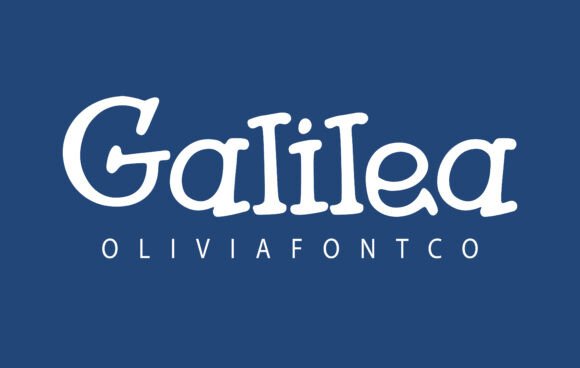
Discover the Charm of Galilea Font: Elevate Your Designs with a Romantic Touch
In the world of typography, a well-crafted font can make all the difference in bringing your creative visions to life. Introducing Galilea Font, an authentic handwritten font that exudes a romantic touch, perfect for designers seeking to add a personal and elegant flair to their projects. In this article, we’ll dive into the features, benefits, and uses of Galilea Font, exploring how it can become your go-to choice for a wide range of design applications.
The Essence of Galilea Font
Galilea Font is an expertly designed, handwritten typeface that boasts a unique blend of elegance and playfulness. Its romantic undertones make it an ideal choice for projects that require a touch of sophistication and whimsy. The font’s authenticity lies in its carefully crafted letters, which convey a sense of warmth and approachability. Whether you’re working on a magazine headline, social media post, or wedding invitation, Galilea Font is sure to leave a lasting impression.
Key Features of Galilea Font
- Legibility: Galilea Font is designed to be highly legible, making it perfect for both title and body text. Its clear and readable letters ensure that your message is conveyed effectively, regardless of the context.
- Romantic Touch: The font’s romantic undertones add a touch of elegance and sophistication to any design. This makes it an excellent choice for projects that require a personal and emotional connection with the audience.
- Versatility: Galilea Font is incredibly versatile, suitable for a wide range of design applications, including magazine headlines, social media posts, branding, wedding invitations, cards, and more.
- Authentic Handwritten Style: The font’s handwritten style gives it a unique and personal feel, allowing you to add a human touch to your designs.
Benefits of Using Galilea Font
By incorporating Galilea Font into your design projects, you can expect a range of benefits that elevate your work and enhance your brand’s visual identity. Some of the key advantages of using Galilea Font include:
- Emotional Connection: The font’s romantic touch helps create an emotional connection with your audience, making your designs more relatable and engaging.
- Unique Visual Identity: Galilea Font’s distinctive style sets it apart from more traditional typefaces, allowing you to establish a unique visual identity for your brand or project.
- Time-Saving: With its high legibility and versatility, Galilea Font saves you time and effort in selecting and pairing fonts for different design applications.
- Ease of Use: The font’s user-friendly design makes it easy to integrate into your workflow, with no need for extensive font pairing or styling.
Design Applications for Galilea Font
Galilea Font’s versatility makes it suitable for a wide range of design applications. Here are some ideas to get you started:
- Magazine Headlines: Use Galilea Font to create eye-catching headlines that grab readers’ attention and add a touch of elegance to your magazine’s layout.
- Social Media: Elevate your social media presence with Galilea Font, using it for post titles, descriptions, or even creating engaging graphics and stories.
- Branding: Establish a unique visual identity for your brand with Galilea Font, using it for logos, business cards, or packaging design.
- Wedding Invitations: Add a romantic touch to your wedding invitations, save-the-date cards, or wedding stationery with Galilea Font.
- Cards and Stationery: Use Galilea Font to create beautiful, handmade-style cards, letters, or stationery that showcase your personal touch.
Tips for Using Galilea Font Effectively
To get the most out of Galilea Font, consider the following tips:
- Experiment with Font Sizes: Play with different font sizes to create visual hierarchy and add emphasis to specific design elements.
- Pair with Complementary Fonts: Combine Galilea Font with complementary fonts to create a harmonious and engaging visual identity.
- Use Colors Wisely: Select colors that complement the font’s romantic and elegant feel, ensuring a cohesive and visually appealing design.
- Don’t Overuse: Use Galilea Font judiciously, reserving it for key design elements or headings to maintain its impact and effectiveness.
Galilea Font is a beautiful, authentic handwritten font that brings a romantic touch to any design project. Its legibility, versatility, and unique style make it an excellent choice for designers seeking to elevate their creative ideas. With its wide range of applications, from magazine headlines to wedding invitations, Galilea Font has the potential to become your go-to font for various design needs. By incorporating Galilea Font into your workflow, you’ll be able to create stunning designs that capture your audience’s attention and leave a lasting impression.